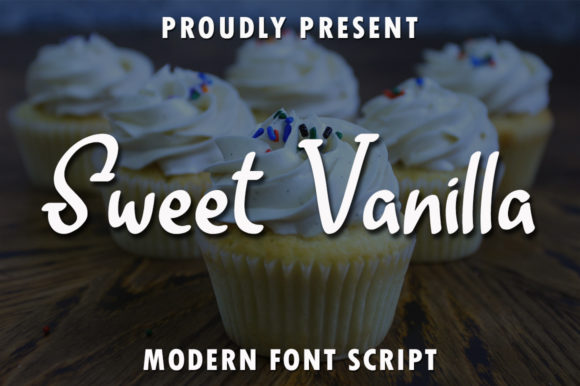
Journey into the Realm of Sweet Vanilla: A Script Font Symphony
Introducing Sweet Vanilla, an enchanting script font that dances across your designs with grace and elegance. Crafted by the visionary hands of rangkaiaksara, this masterpiece is not just a font; it's an experience.
Bold and Playful, Sweet Vanilla steals the spotlight with its tantalizing thick strokes and captivating curves. Its dynamic presence adds an instant dash of personality to your projects, making them irresistible to the eyes.
Delicate and Refined, Sweet Vanilla possesses a touch of finesse that sets it apart. Its fine lines and subtle variations create a sense of sophistication, transforming your designs into works of art.
Versatile and Adaptable, Sweet Vanilla seamlessly blends with a wide range of design styles. From cheerful invitations to elegant branding, this script font effortlessly complements your vision. Unleash your creativity and let Sweet Vanilla elevate your projects to new heights.